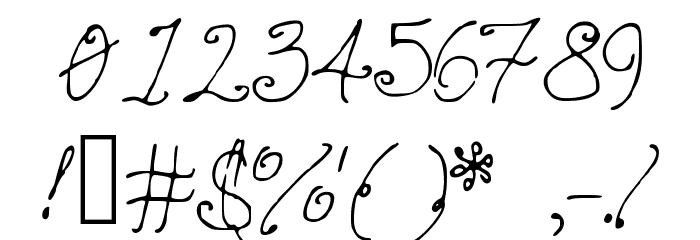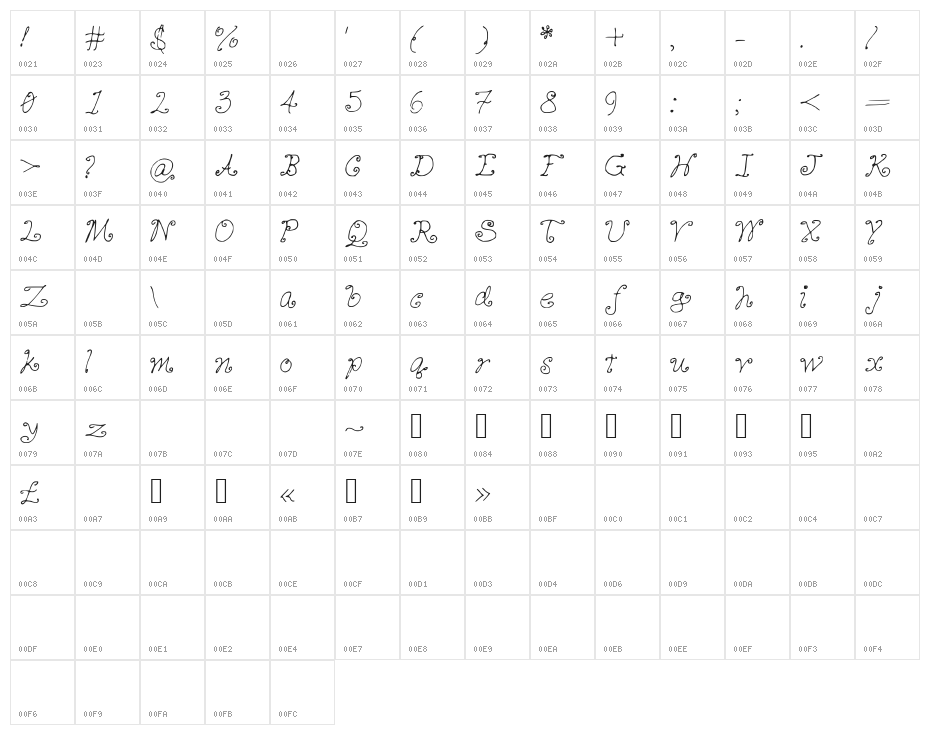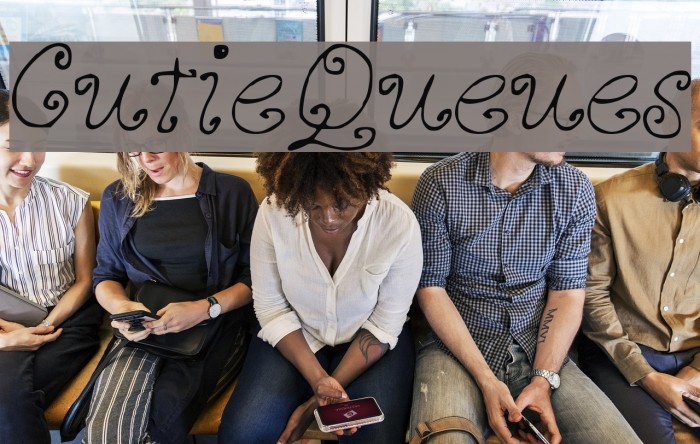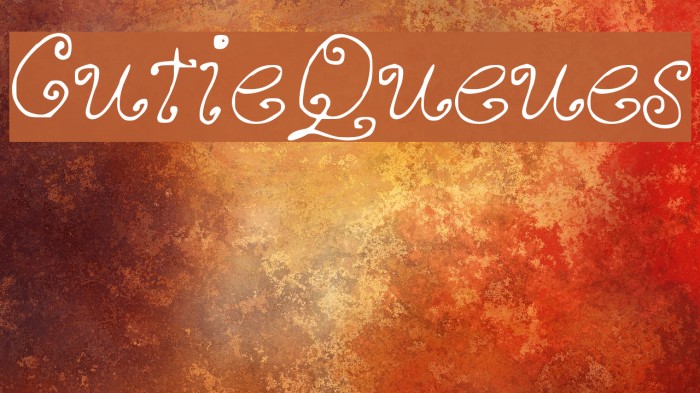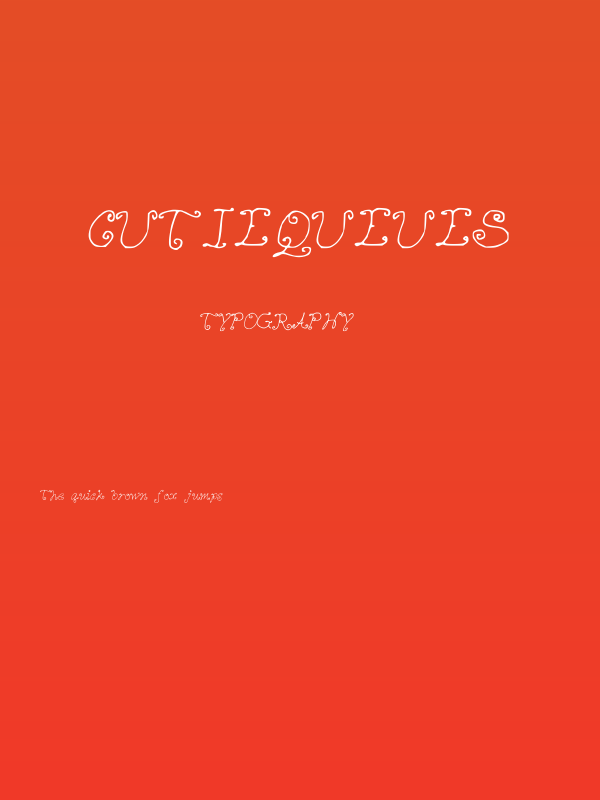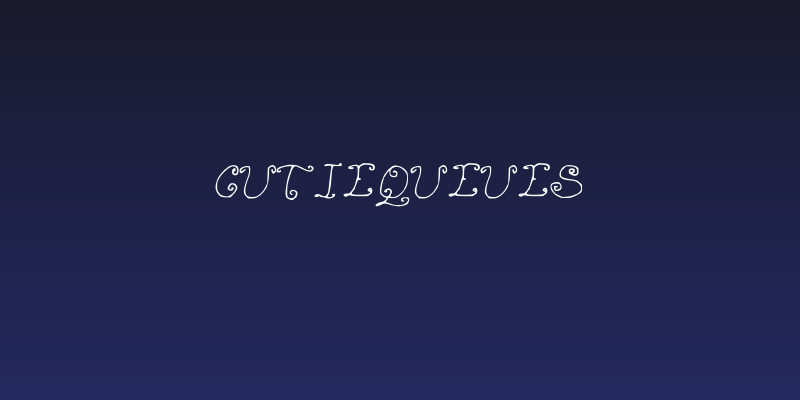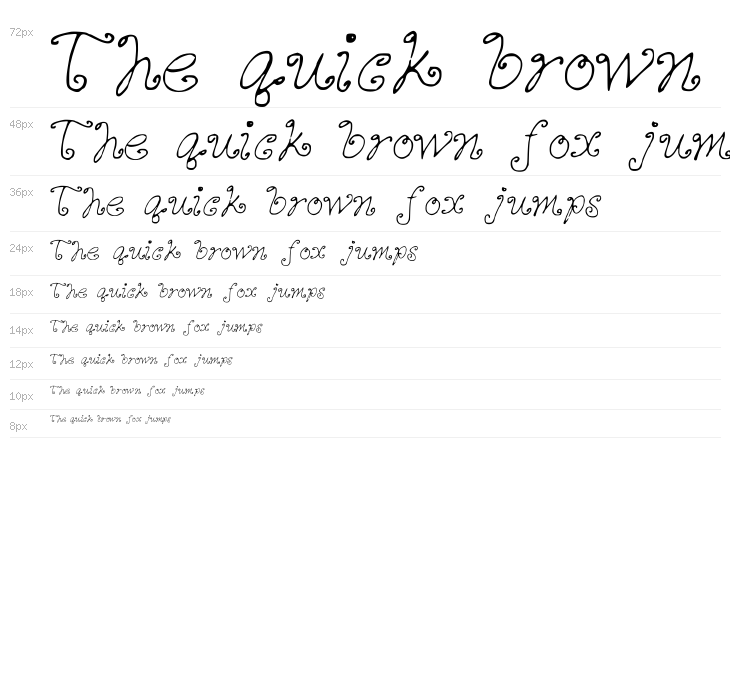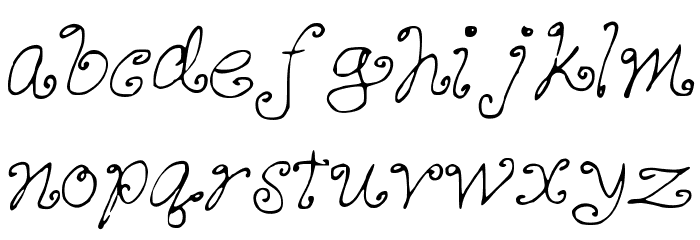
CutieQueues Font
CutieQueues Description
This whimsical and playful font features a unique blend of curls and loops, giving each character a lively and animated appearance. The uppercase letters are adorned with decorative swirls, while the lowercase letters maintain a more subtle yet equally charming style. Numbers and special characters follow the same playful design, making the font cohesive and visually appealing. The overall design is reminiscent of a handwritten script with a touch of fantasy, perfect for projects that require a fun and engaging aesthetic.
| Proposed Projects | Ideal for children's books, greeting cards, playful branding, and whimsical invitations. |